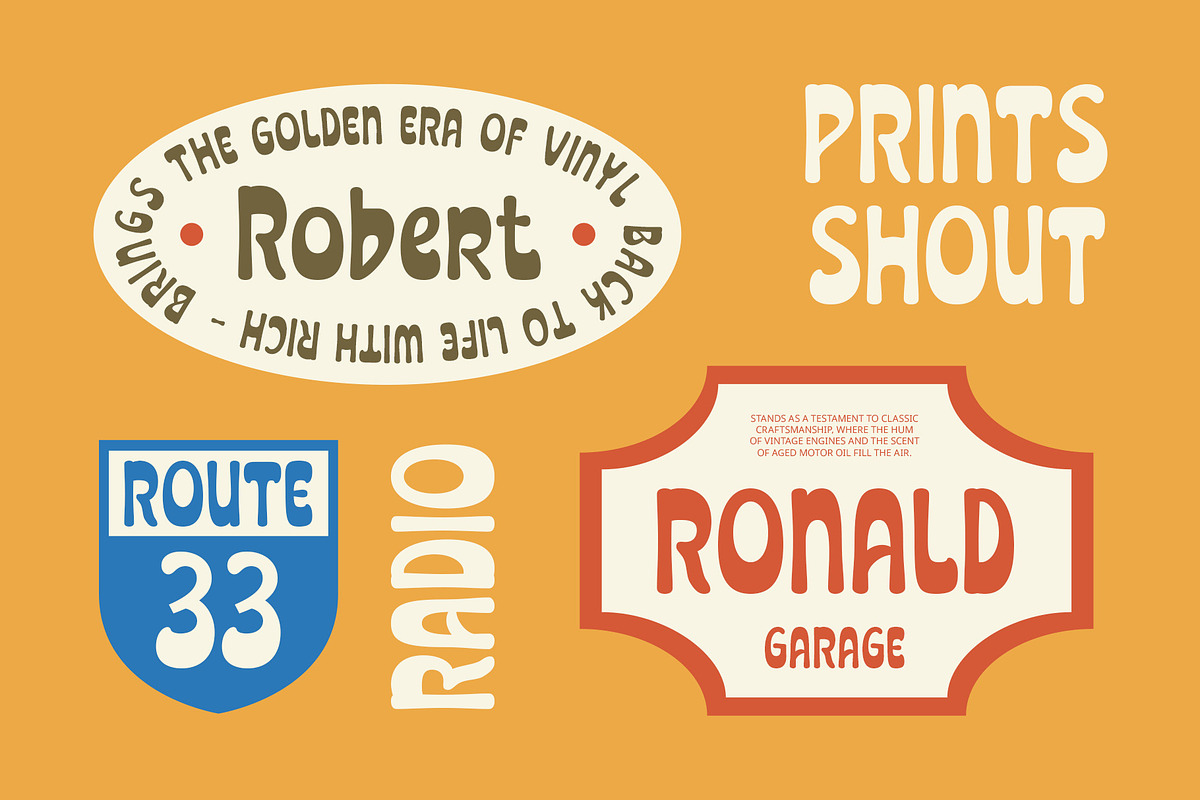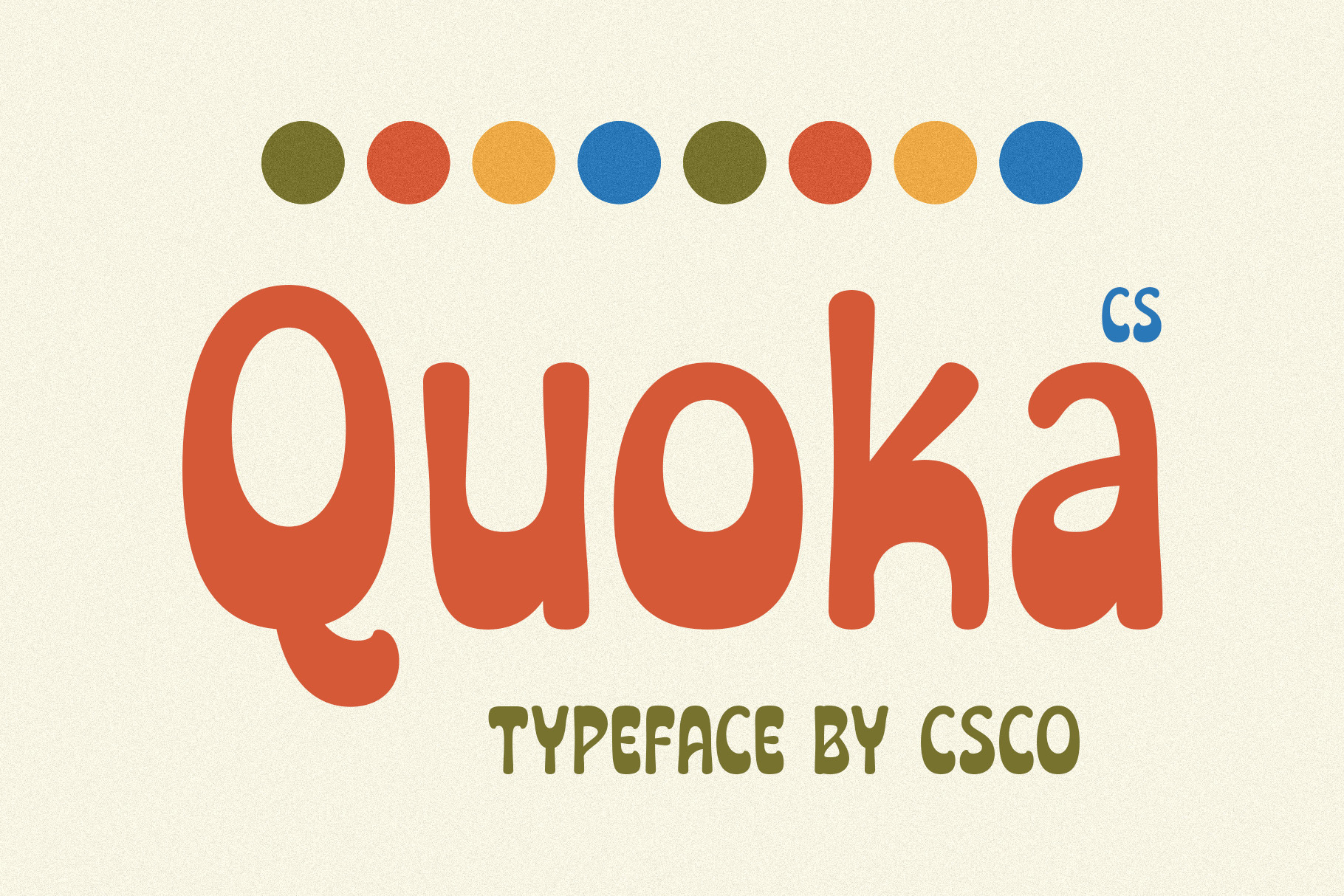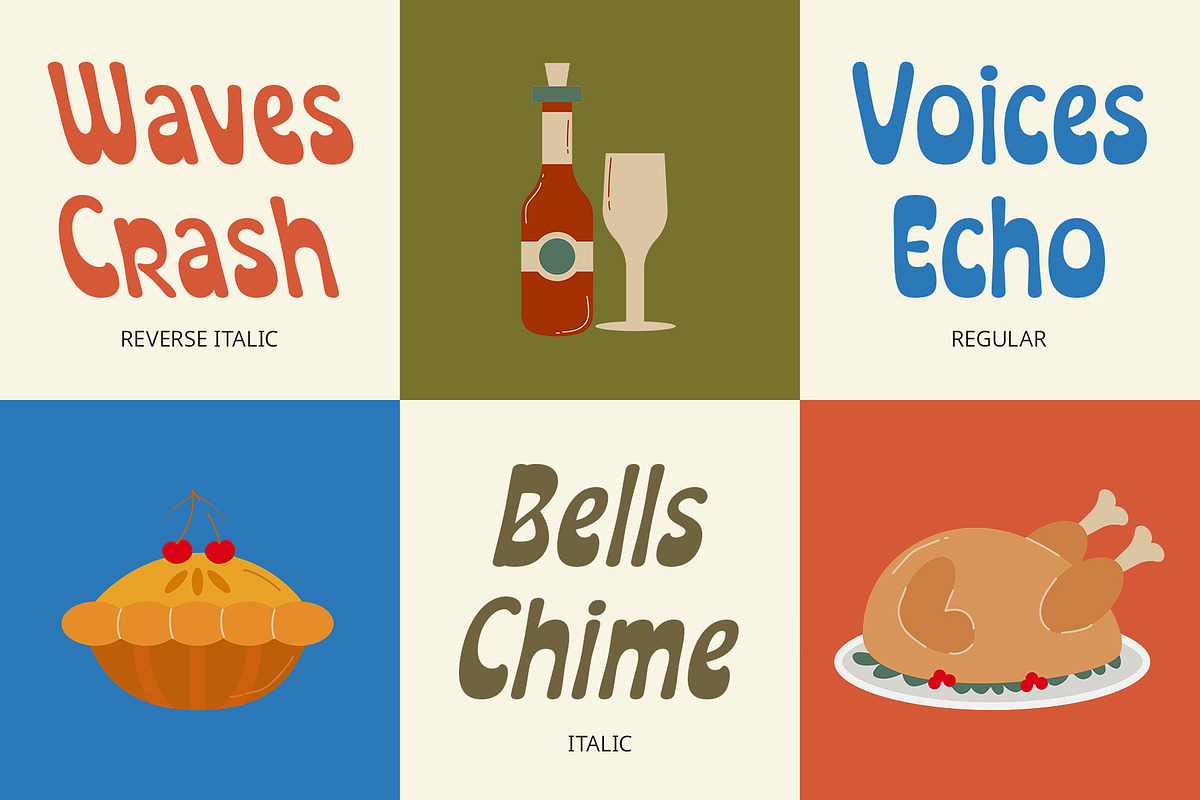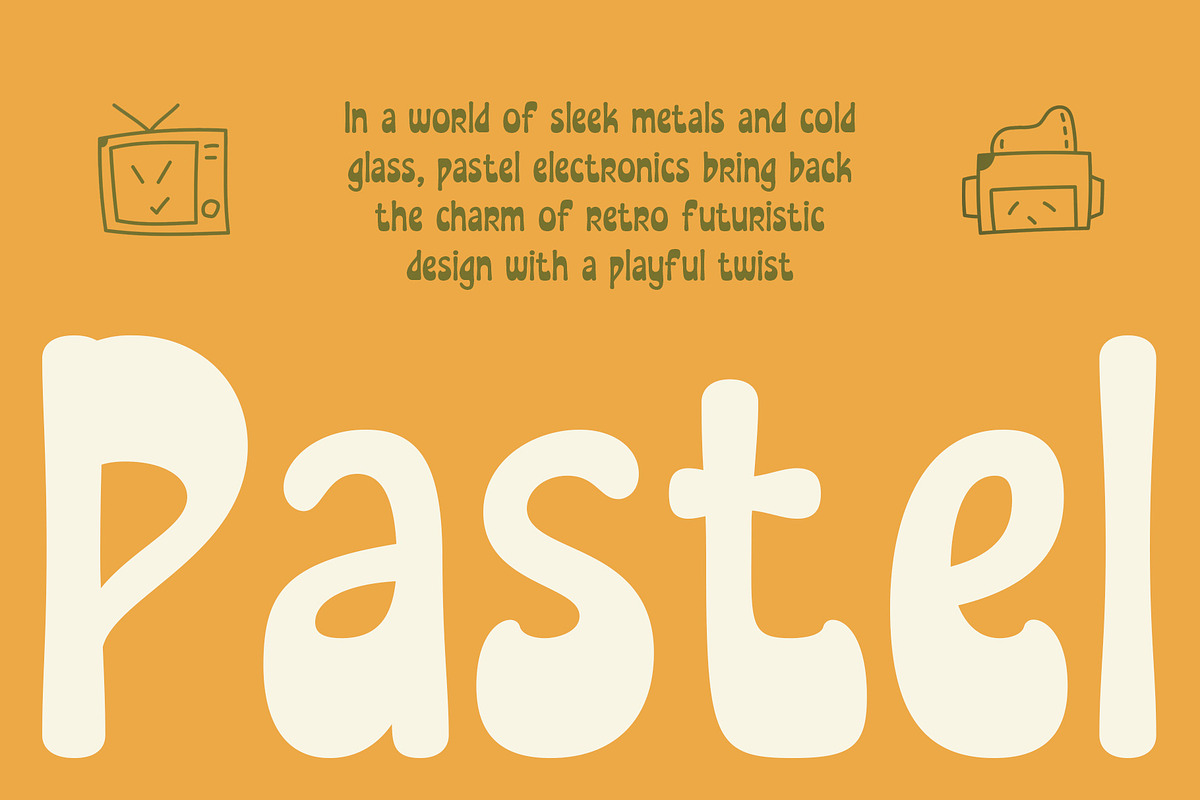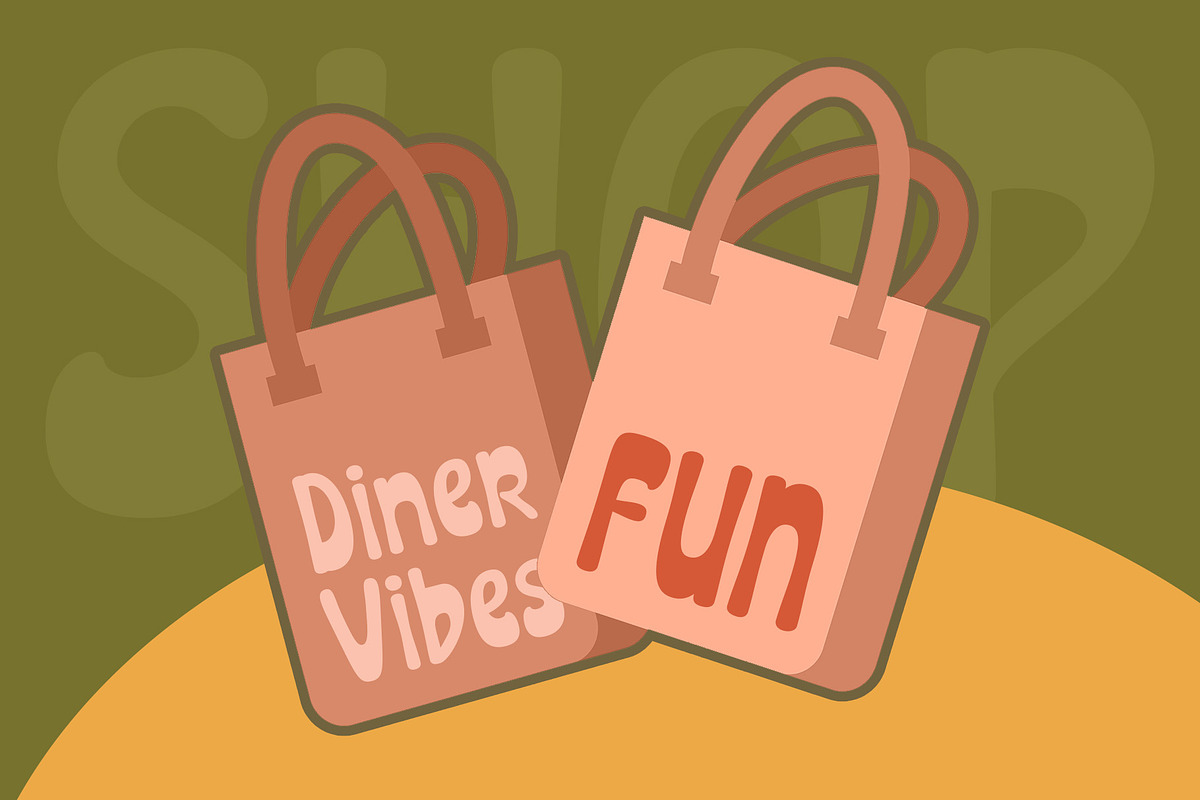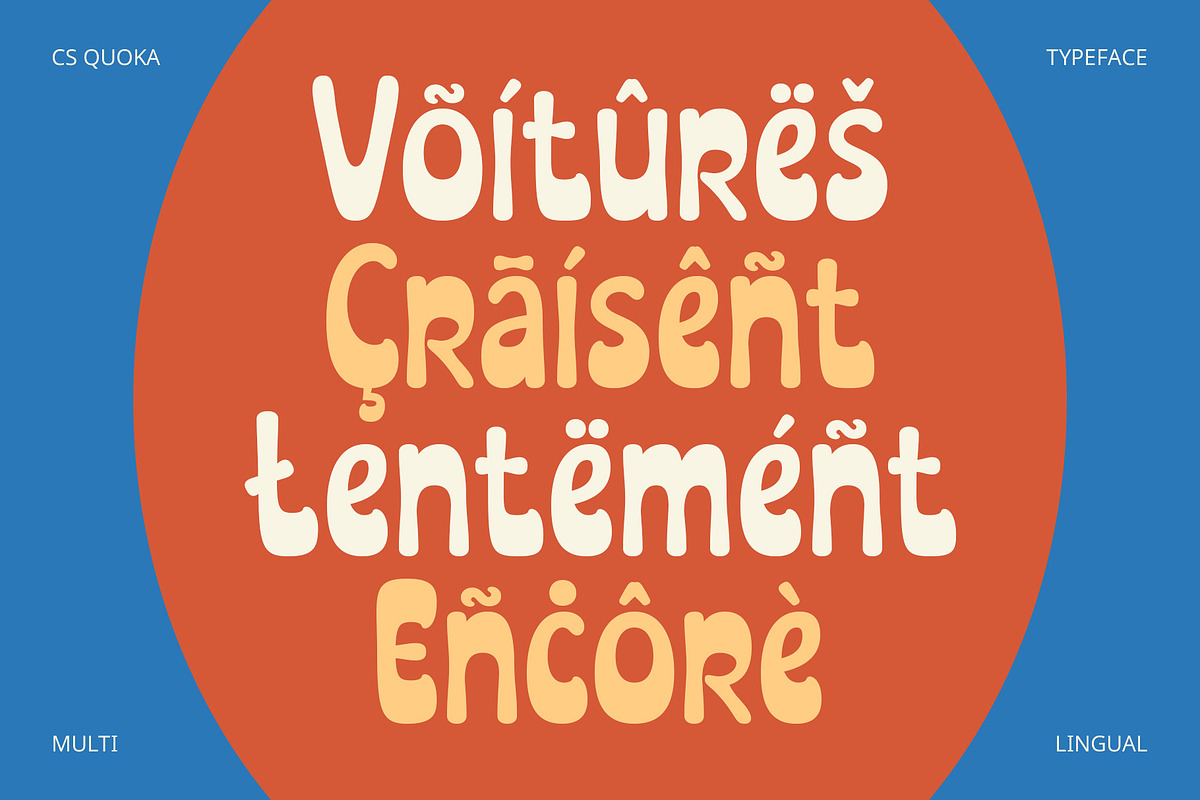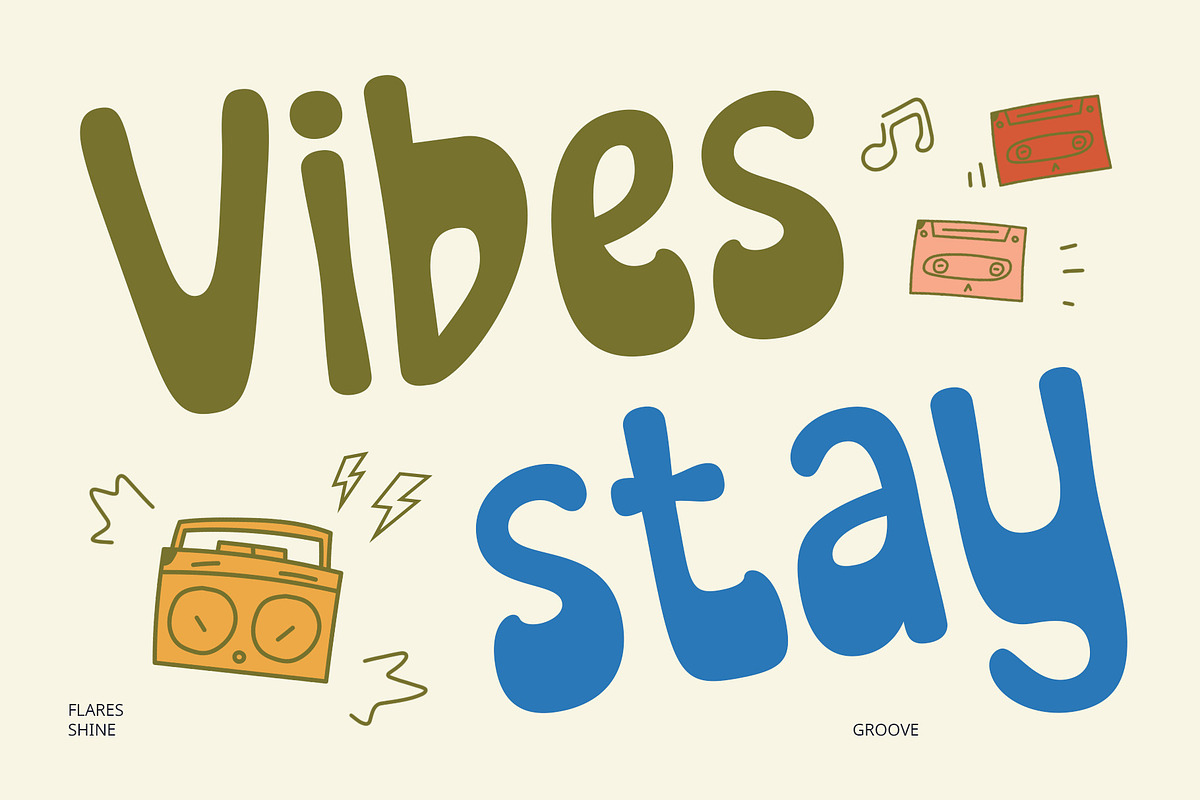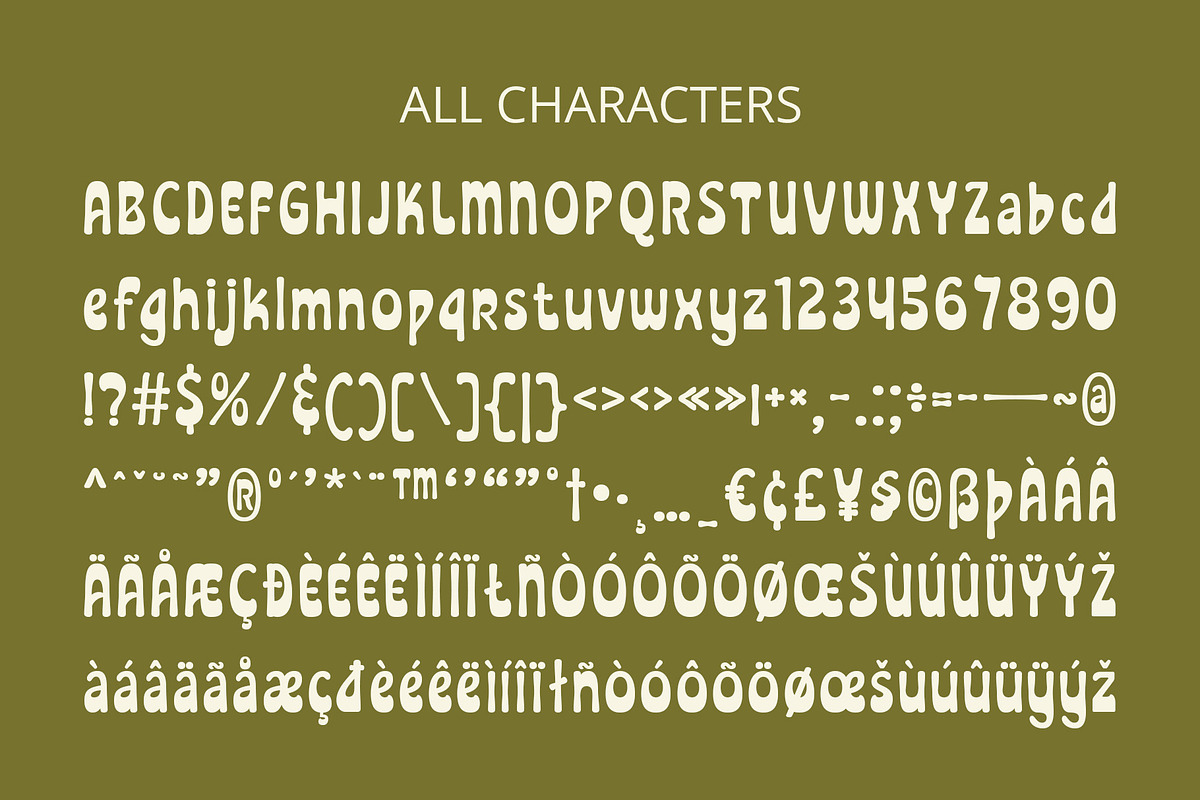
CS Quoka – Groovy Font
CS Quoka – Groovy Font: A Funky Fusion of Retro and Playful Energy
A Groovy Display Font with Retro Flair CS Quoka is a bold and expressive display font that embodies the free-spirited energy of retro typography. With its curvy, fluid letterforms and playful proportions, it instantly transports designs to the funky, colorful aesthetics of the ‘70s. Its lively nature makes it a perfect choice for eye-catching, energetic, and nostalgic projects.
Dynamic Shapes for Bold and Lively Designs CS Quoka features smooth, flowing curves with varying thicknesses, creating a natural rhythm and movement in text. The dynamic, bouncy letterforms enhance its fun and funky appeal, making it an excellent choice for designs that require bold personality and creative expression.
Perfect for Nostalgic and Playful Themes Designed to bring vibrancy and joy, CS Quoka is ideal for music posters, vintage branding, fashion labels, album covers, and product packaging. Its nostalgic influence pairs well with retro-inspired designs, adding a groovy touch to any project that calls for a fun and carefree atmosphere.
Versatile and Expressive Typography CS Quoka’s quirky yet balanced letterforms make it a versatile option for branding, advertisements, social media graphics, and editorial layouts. Whether you’re working on a bold headline, a festival poster, or a funky merchandise design, this font delivers a unique blend of nostalgia and modern playfulness, ensuring your work stands out with confidence and charm.